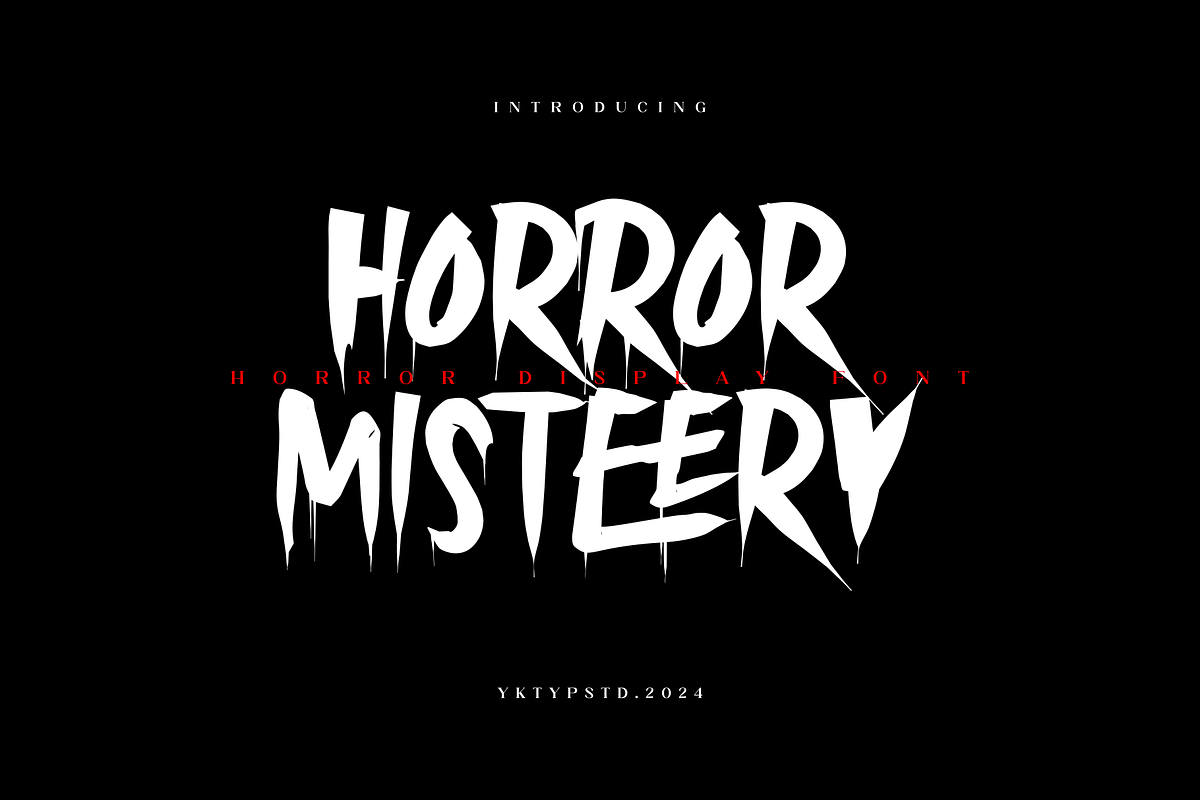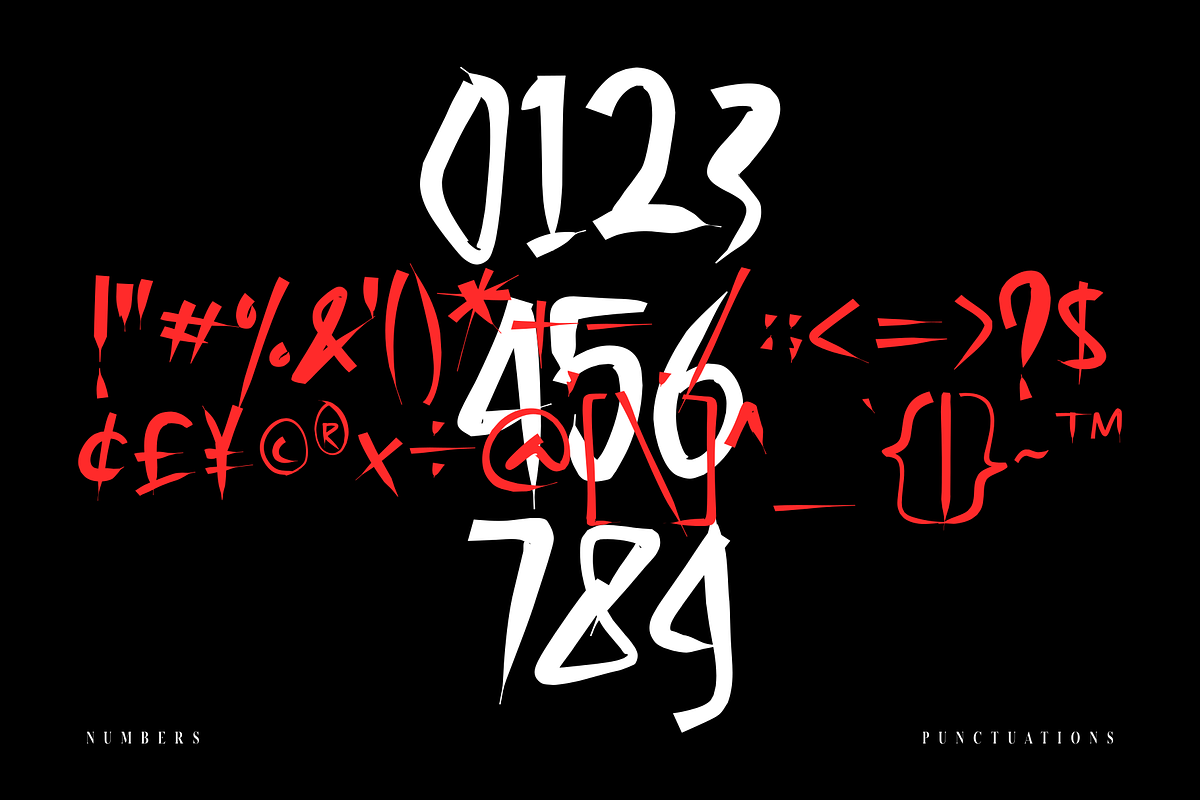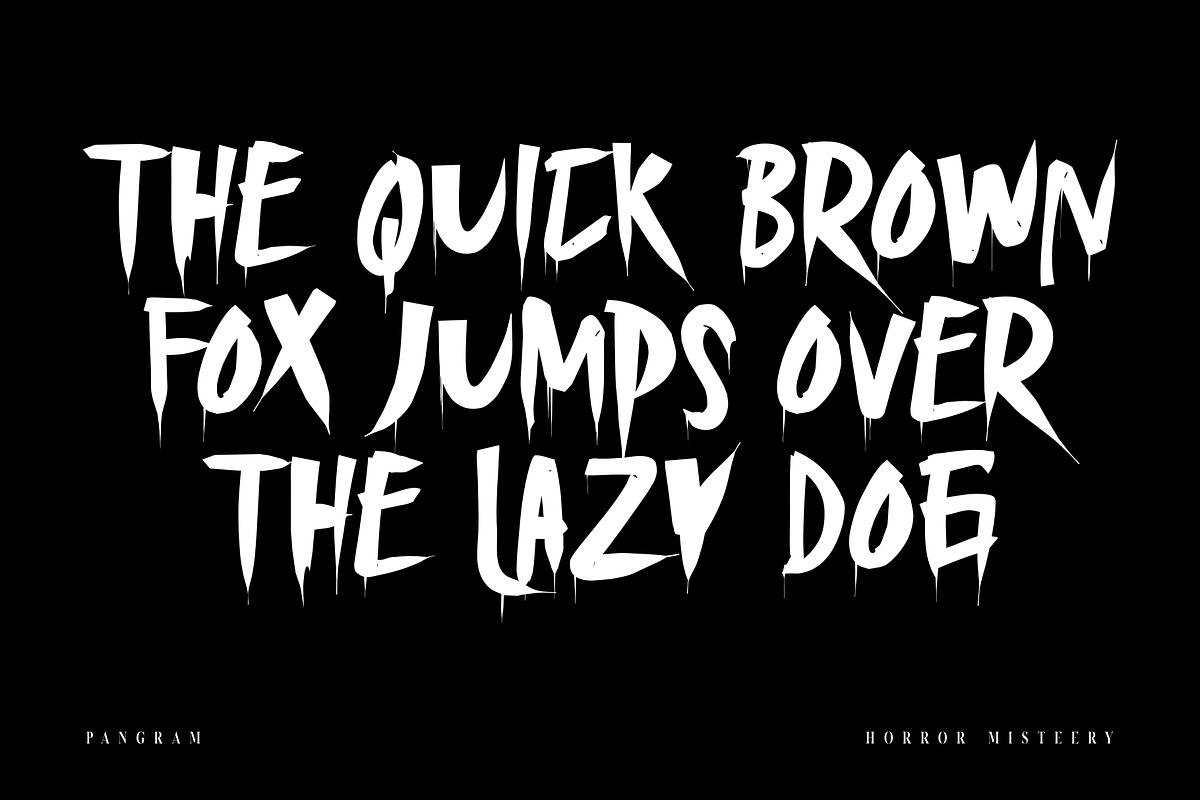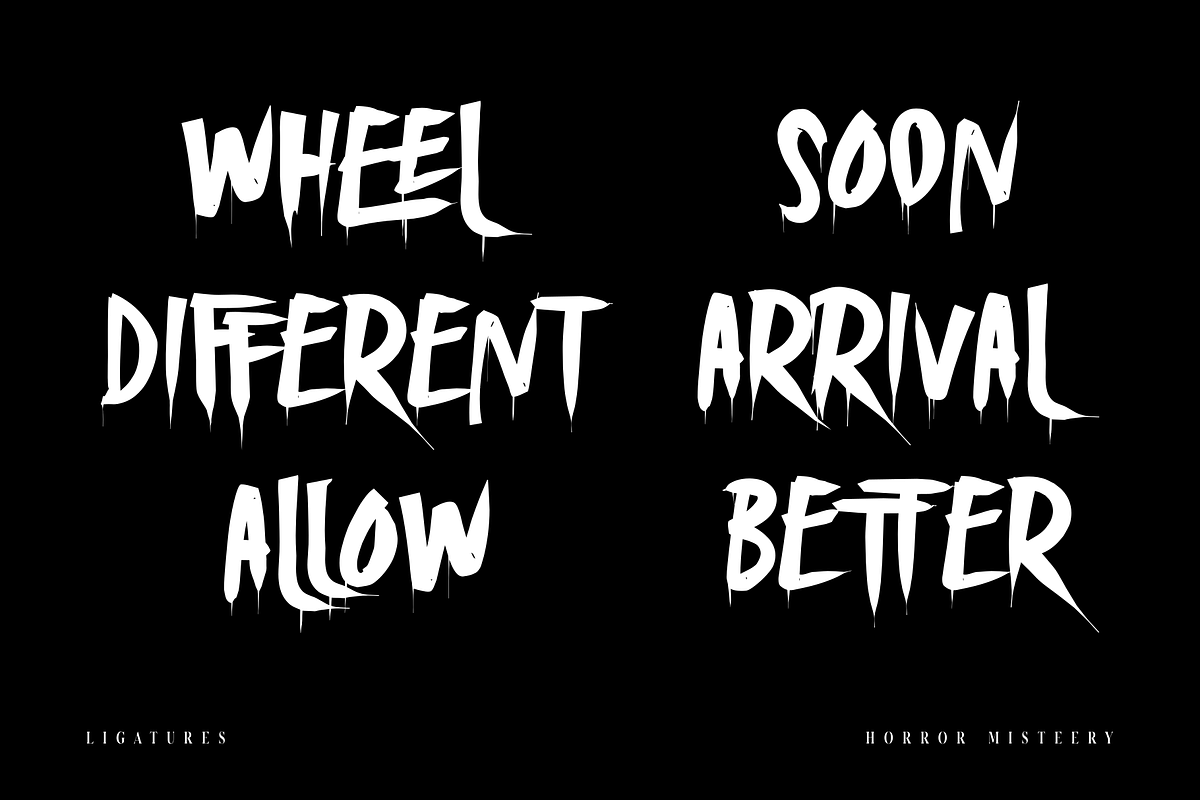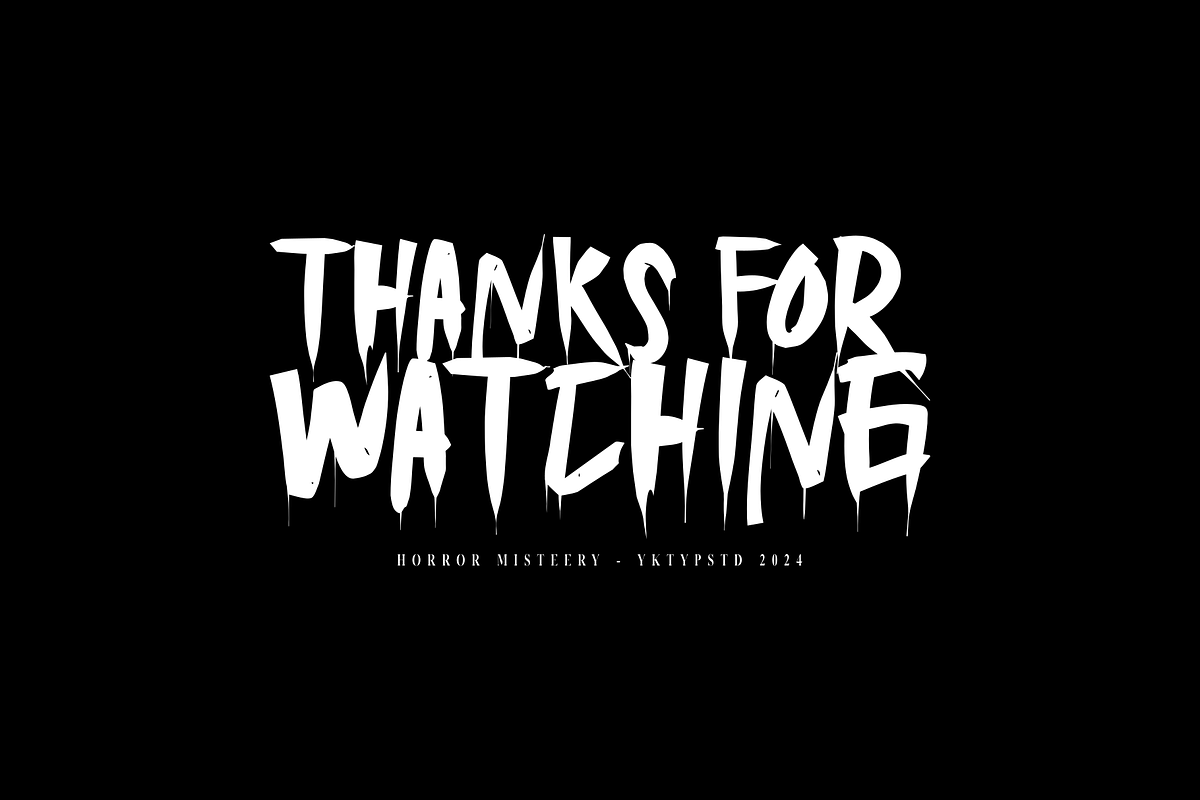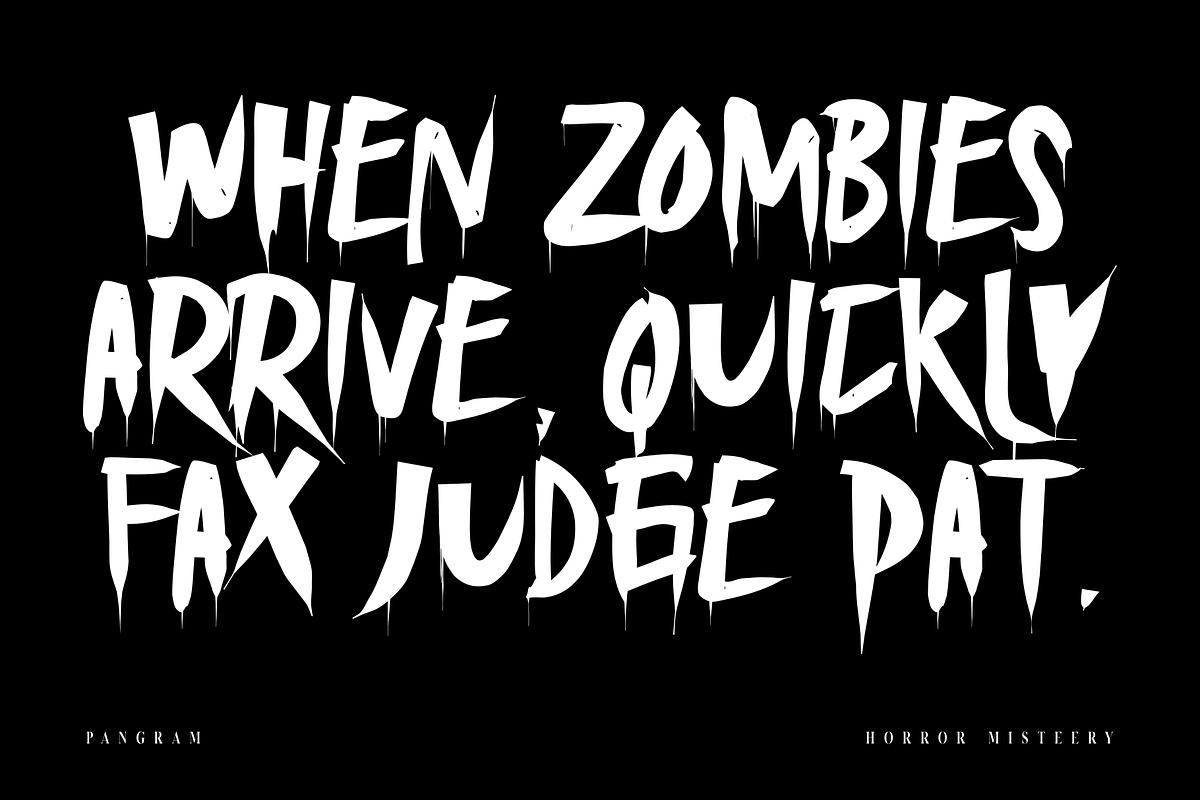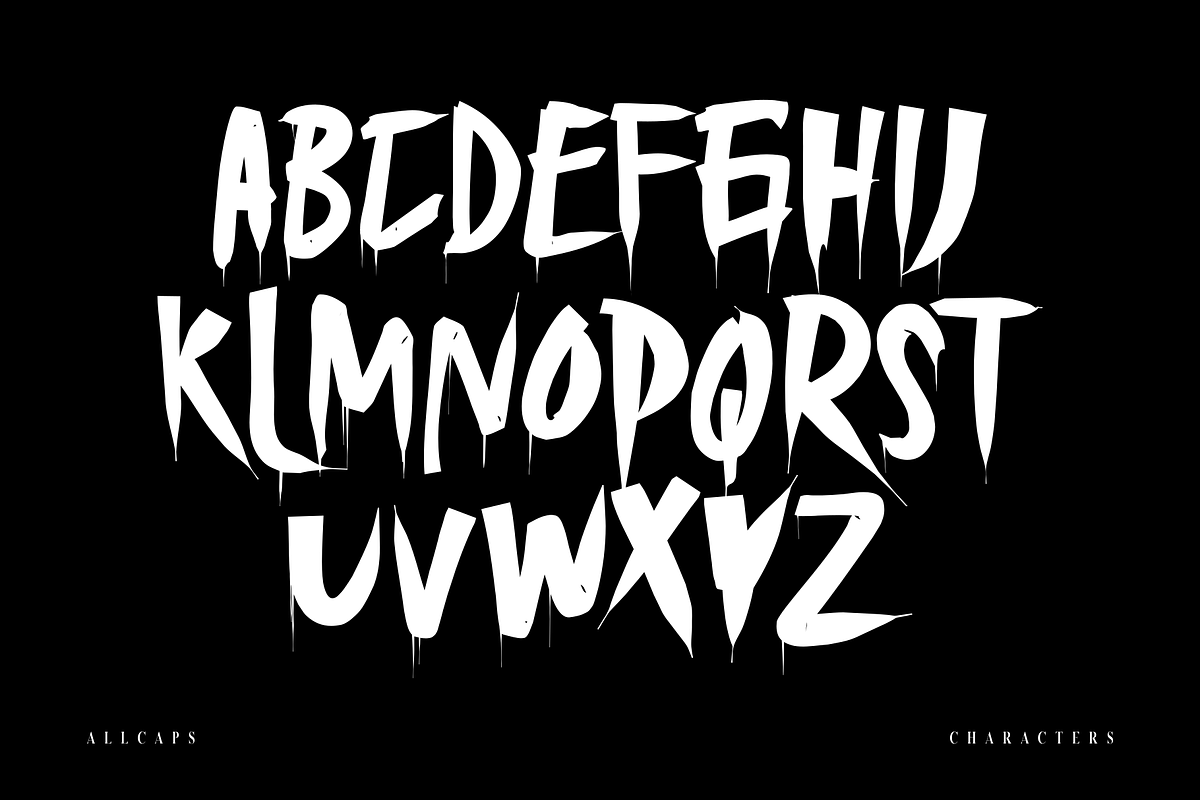
Horror Misteery
Unveil the macabre appeal of the Horror Misteery font, intricately crafted to evoke a haunting sense of foreboding. This bone-chilling typeface is perfect for spooky-themed designs, suspenseful horror movie promotions, and any project that requires a subtle, spine-tingling atmosphere. With its eerie textures and immersive intensity, Horror Misteery transforms ordinary text into a chilling masterpiece.
Ideal for creating a world of shadows, this font adds an unsettling ambiance to your design projects. Whether you're working on film posters, book covers, or digital graphics, Horror Misteery delivers the perfect blend of beauty and terror, ensuring your work stands out with a captivating, spine-chilling effect. Dive into the depths of horror with a typeface that's as mysterious as it is thrilling.
- All Caps Character (A-Z)